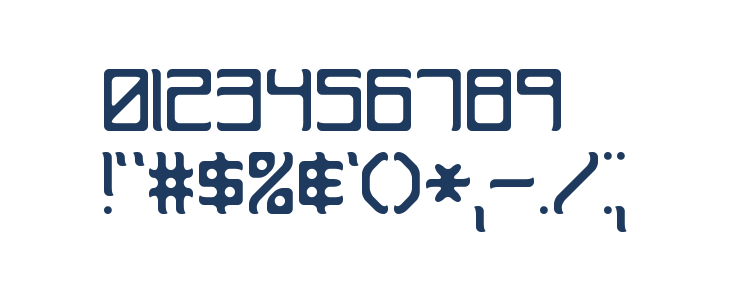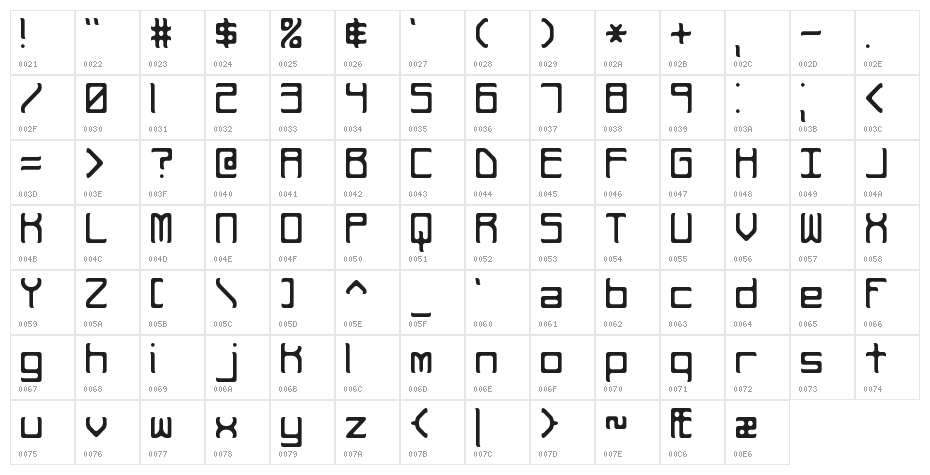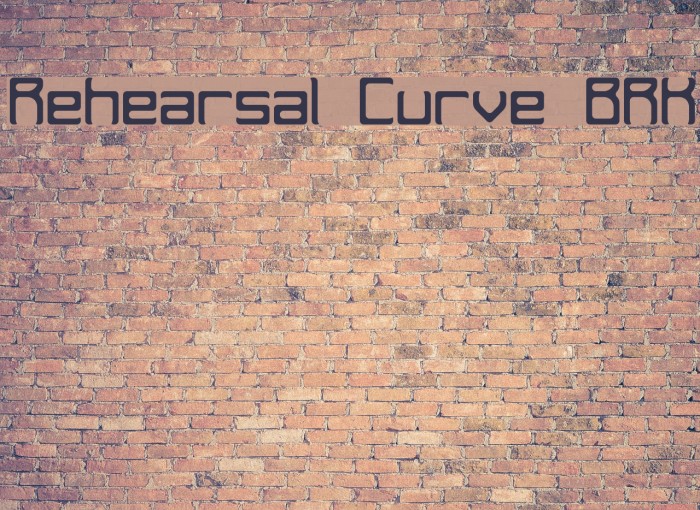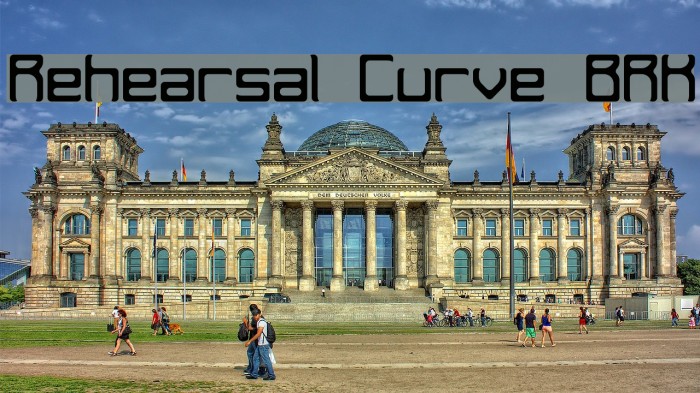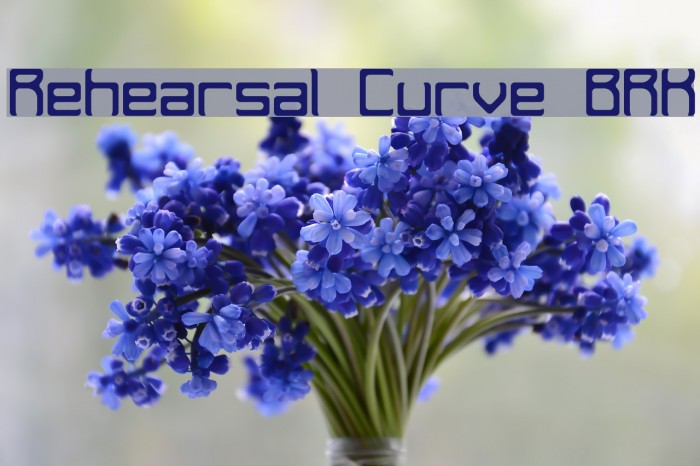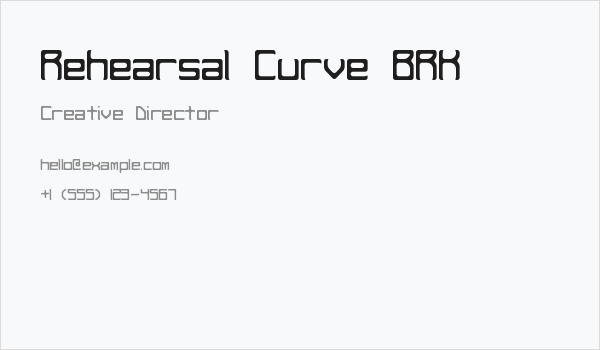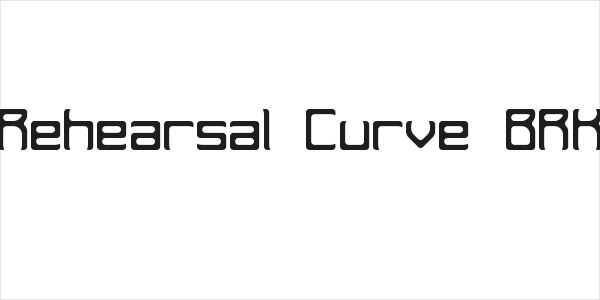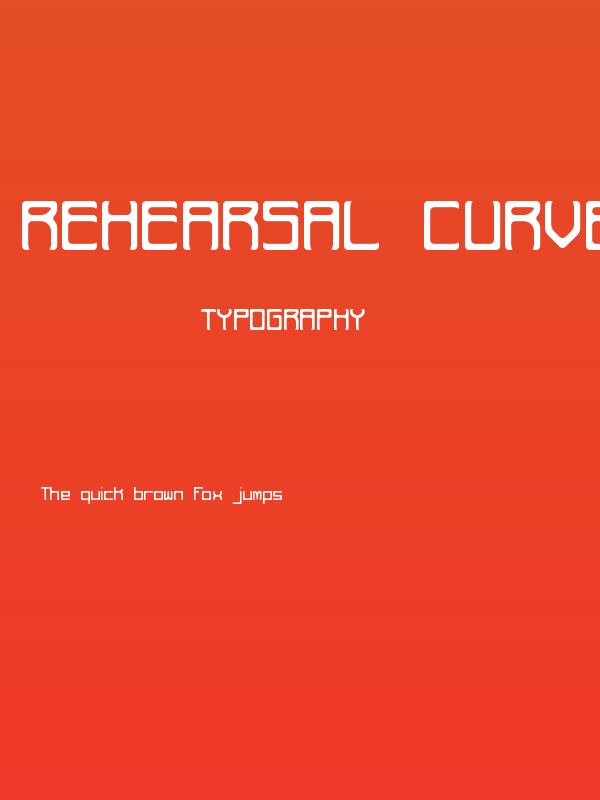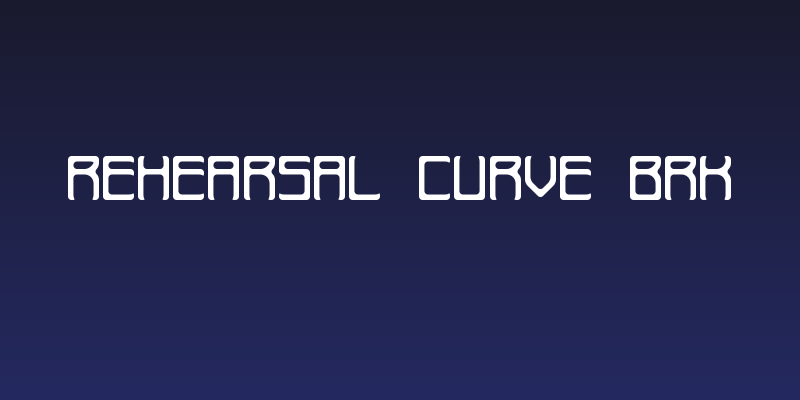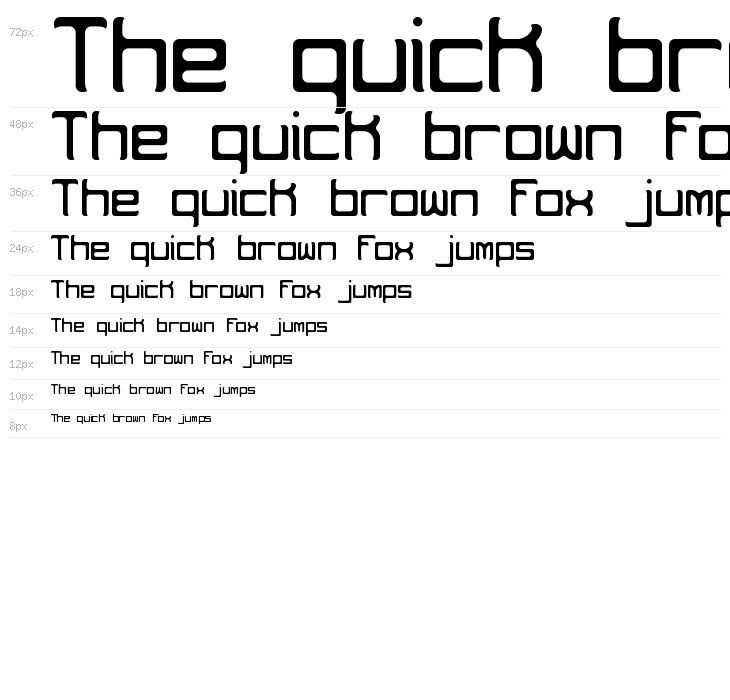
Rehearsal Curve BRK Font
Rehearsal Curve BRK Description
This font features a unique blend of geometric and rounded elements, creating a modern and futuristic appearance. The characters are bold with a consistent stroke width, giving them a strong presence. The rounded corners soften the overall look, making it approachable yet distinct. The uppercase and lowercase letters maintain a uniform height, contributing to its clean and organized aesthetic. Numbers and special characters follow the same design principles, ensuring cohesion across all elements. This font is versatile, suitable for both digital and print media, and can be used to make a statement in various design projects.